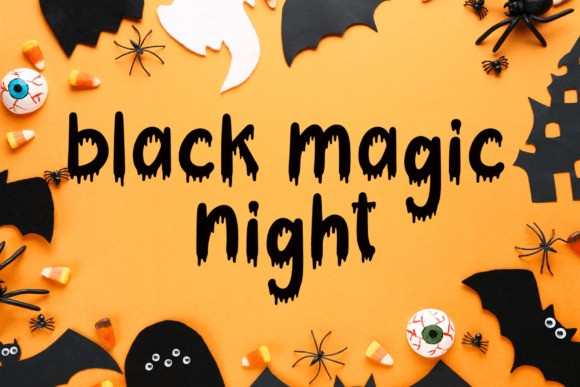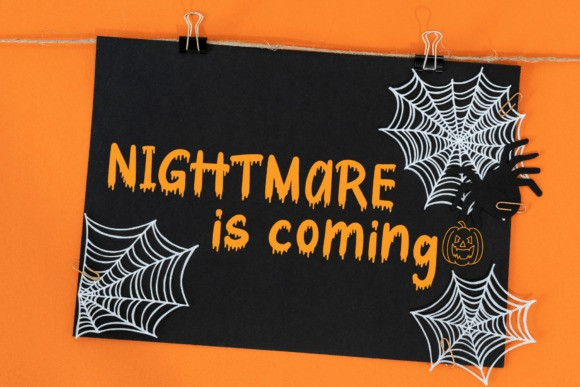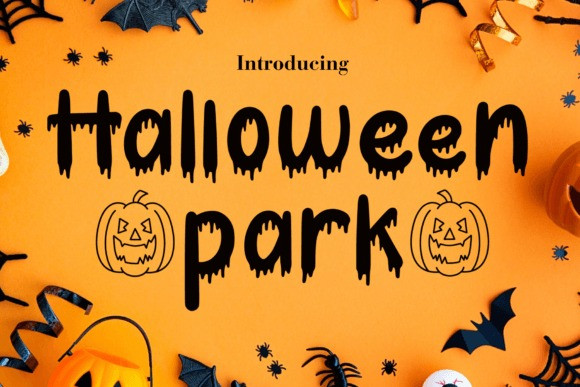
Halloween Park Font
Halloween Park Font is a dripping fun and thick display font. Use it for each of your October designs and notice how they instantly come to life. Halloween Park is PUA encoded, which means you can access all of the glyphs and swashes with ease!